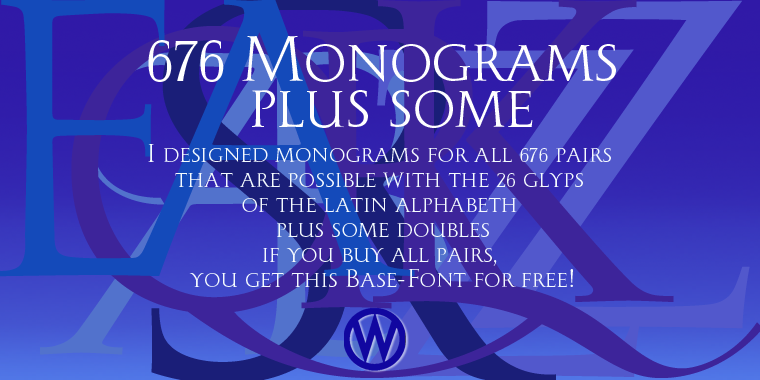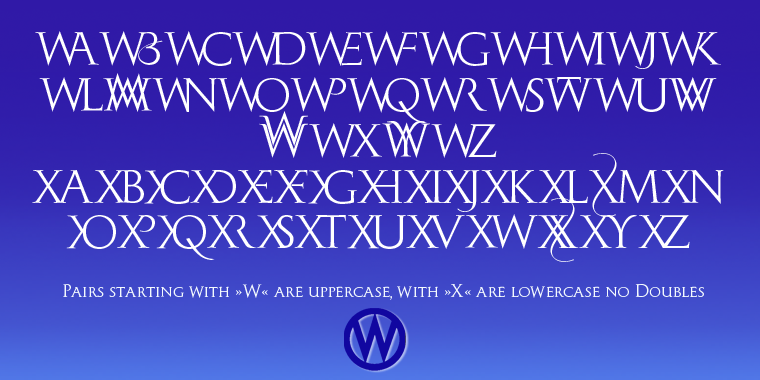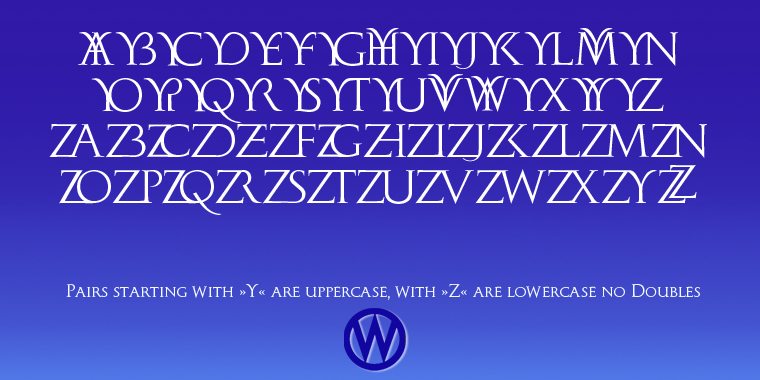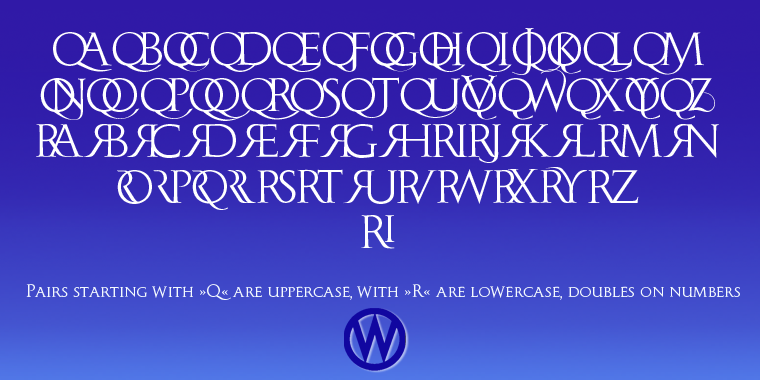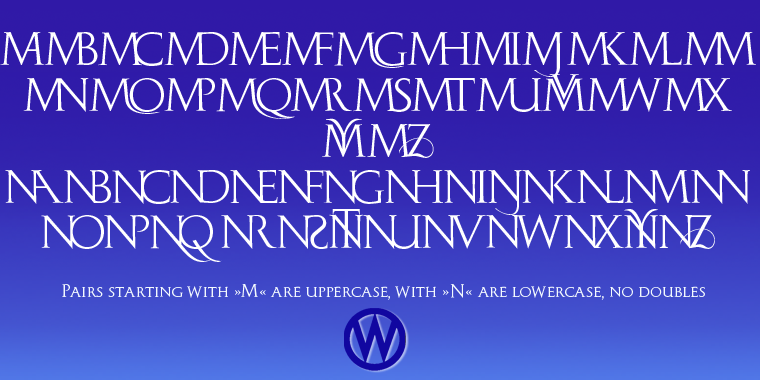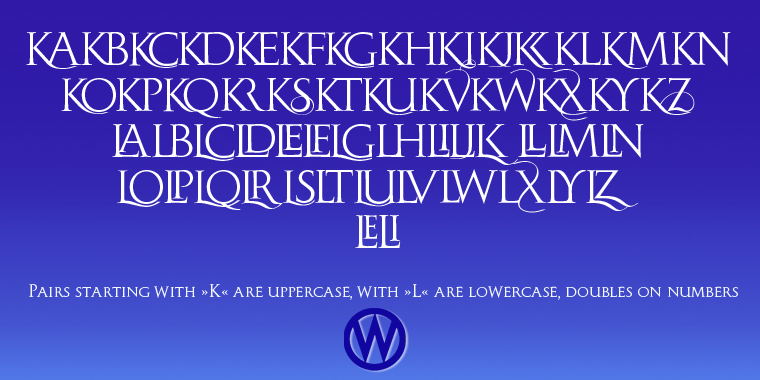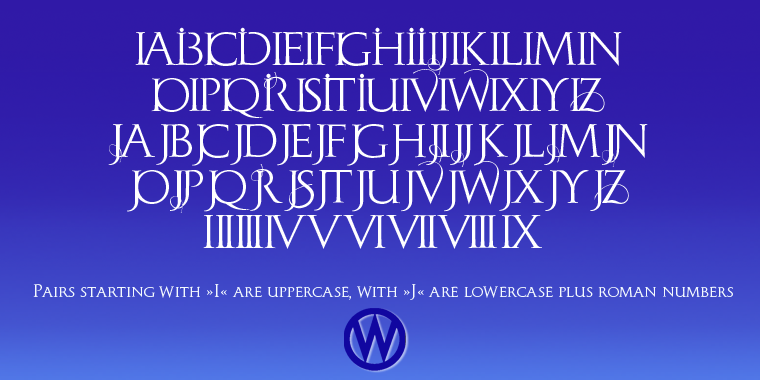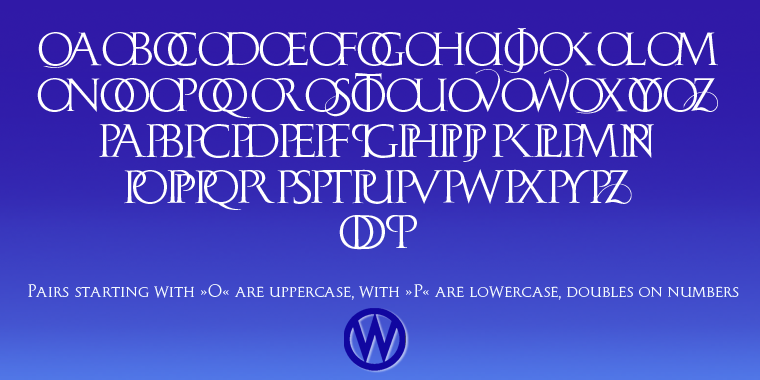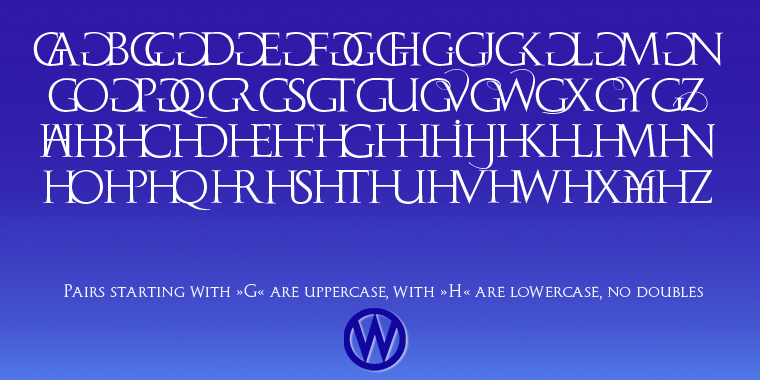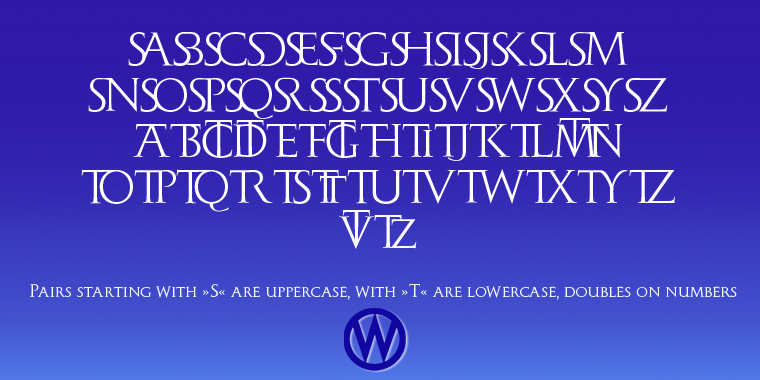
Monogramma is a monograms, novelty and display serif font family. This typeface has fourteen styles and was published by Wiescher-Design.
»Monogramma« is a set of 676 beatiful and unique Monograms plus some doubles. There is one monogram for each possible letter-combination! For easy use I packed the monograms in 13 packets. One for two starting letter each. So if for example you look for the monogram »GW«, you must choose the packet »Monogramma-GH«. the G-combinations under the uppercase letters. You now have to type a capital »W« and Bingo you have the combination »GW«! Some letter-combinations have doubles, just check the numbers 0 to 9 if there is anything to be found. If you buy the whole set of monograms you get the basic font free of charge! Your long-distance (this was a lot of work) font-designer Gert Wiescher